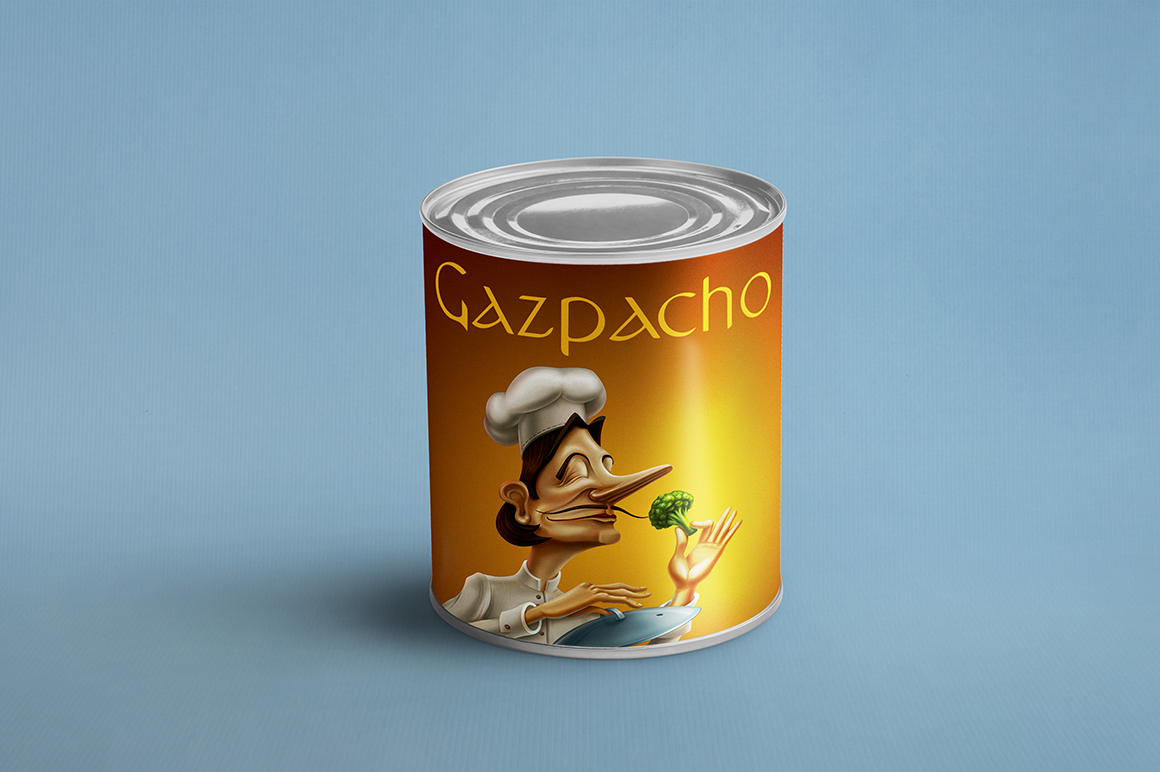
Introducing Anchor Font: A Whimsical Display Font Inspired by Russian Fairy Tales
In the world of typography, fonts play a crucial role in bringing designs to life. For designers and crafters looking to add a touch of magic to their creations, Anchor Font is an exciting new display font that draws inspiration from Russian fairy tales. With its unique Cyrillic lettering, Anchor Font offers a distinctive and captivating aesthetic that’s sure to enchant audiences.
The Story Behind Anchor Font
Anchor Font is more than just a beautiful font – it’s a gateway to a world of wonder and fantasy. Inspired by the rich cultural heritage of Russian fairy tales, this font brings to life the mystique and romance of a bygone era. With its intricate lettering and ornate details, Anchor Font is the perfect choice for designers seeking to create something truly special.
Key Features of Anchor Font
- Display Font: Anchor Font is a display font designed to make a statement. Its bold and eye-catching design makes it perfect for headlines, titles, and other prominent text elements.
- Cyrillic Lettering: Inspired by Russian fairy tales, Anchor Font features beautiful Cyrillic lettering that adds a touch of authenticity to any design.
- European Language Support: With a range of extra symbols, Anchor Font offers comprehensive support for European languages, making it a versatile choice for designers working with international clients.
- Versatility: Anchor Font matches many different styles of design, from whimsical and fantastical to elegant and sophisticated.
What Makes Anchor Font Special?
So, what sets Anchor Font apart from other fonts on the market? Here are just a few reasons why designers and crafters are falling in love with this enchanting font:
- Unique Aesthetic: Anchor Font’s distinctive Cyrillic lettering and ornate details create a truly one-of-a-kind aesthetic that’s sure to capture attention.
- Flexibility: With its range of extra symbols and European language support, Anchor Font is an incredibly versatile font that can be used in a wide range of design applications.
- Ease of Use: Anchor Font is designed to be easy to use, with a clean and intuitive design that makes it simple to integrate into any project.
Using Anchor Font in Your Designs
So, how can you use Anchor Font to bring some magic to your designs? Here are a few ideas to get you started:
- Headlines and Titles: Use Anchor Font to create eye-catching headlines and titles that grab attention and draw the reader in.
- Branding and Packaging: Add a touch of whimsy and fantasy to your branding and packaging with Anchor Font’s unique and captivating aesthetic.
- Invitations and Stationery: Create beautiful and elegant invitations and stationery with Anchor Font’s ornate details and Cyrillic lettering.
In conclusion, Anchor Font is a truly special font that offers designers and crafters a unique and captivating aesthetic inspired by Russian fairy tales. With its Cyrillic lettering, European language support, and versatility, Anchor Font is the perfect choice for anyone looking to add a touch of magic to their designs. So why not give Anchor Font a try and see the magic for yourself?